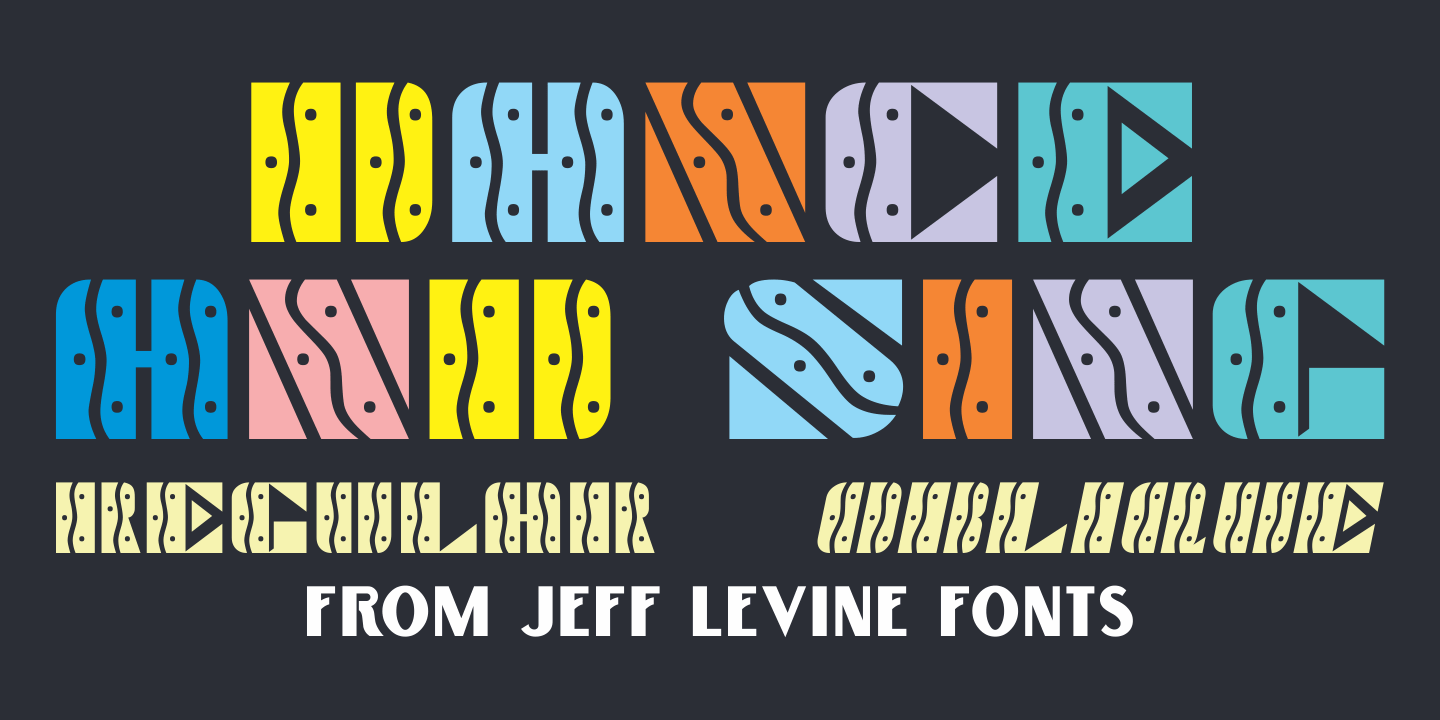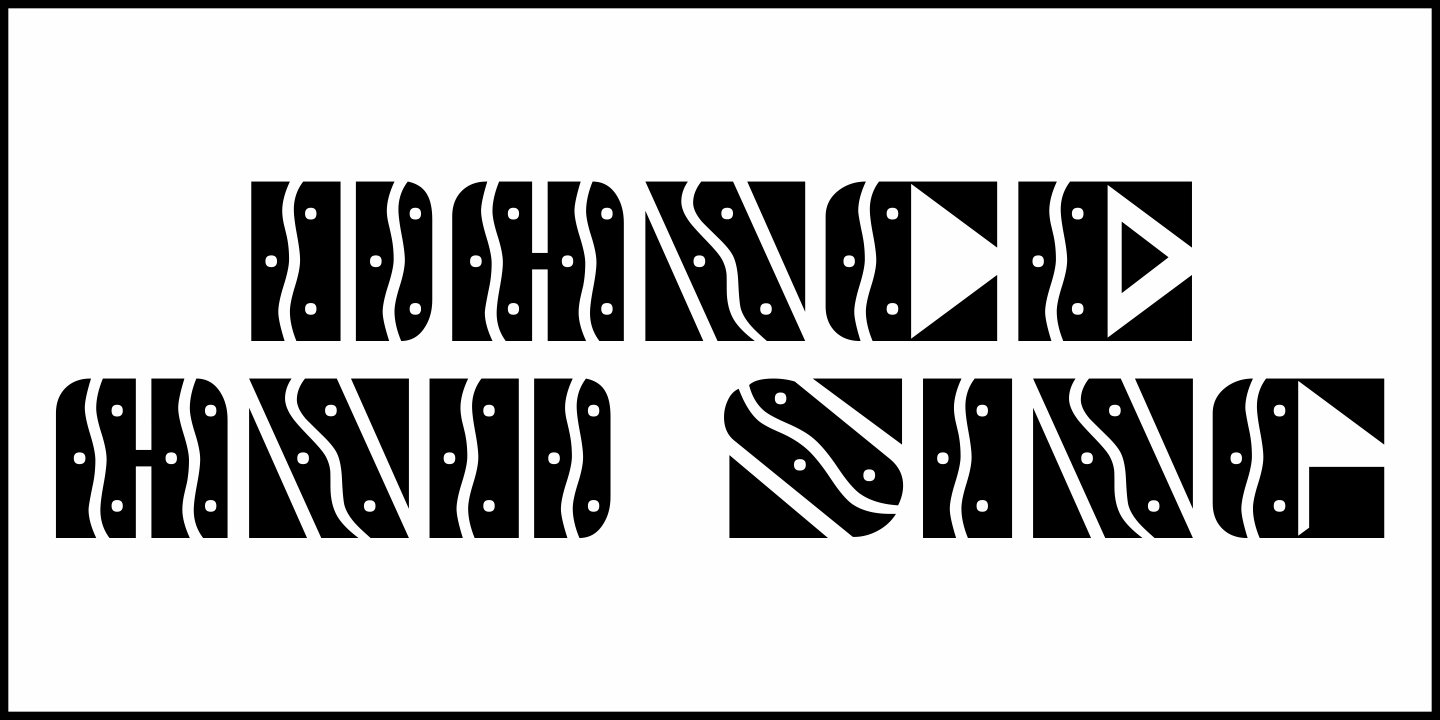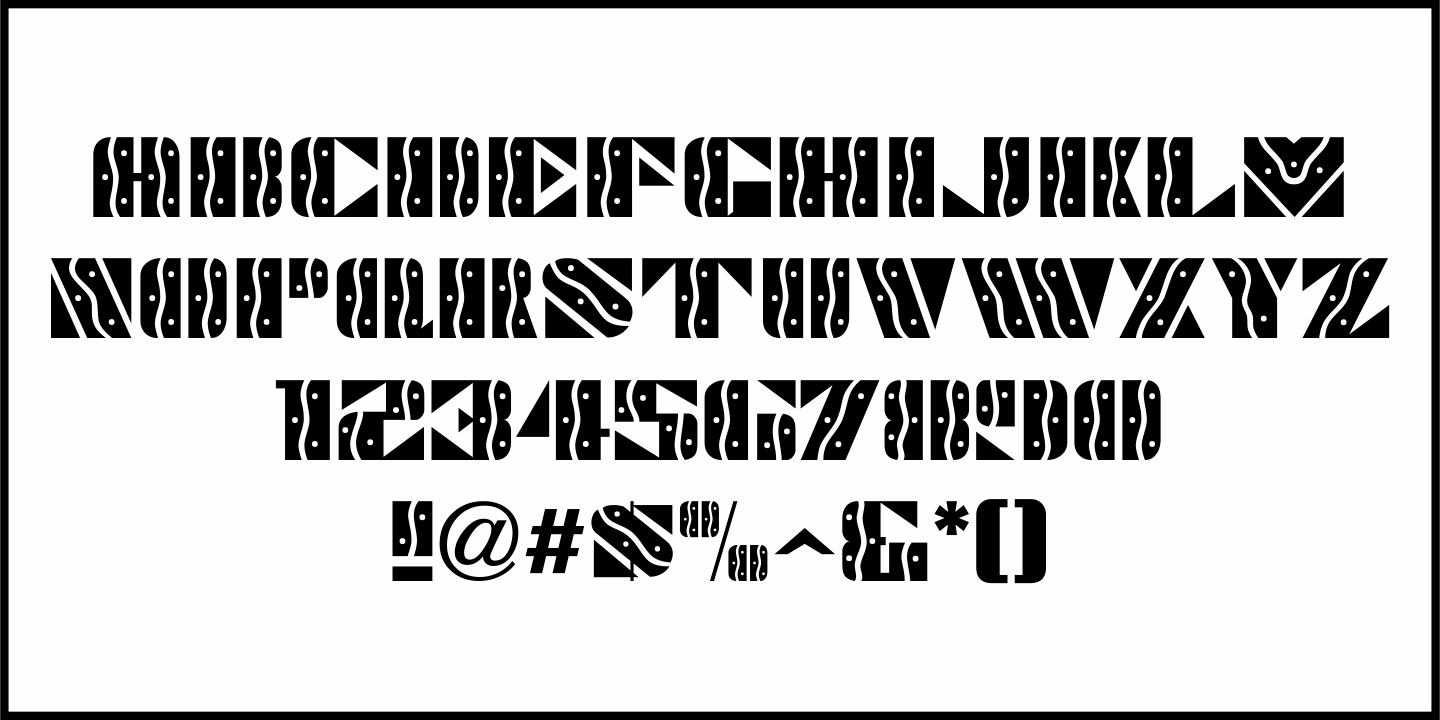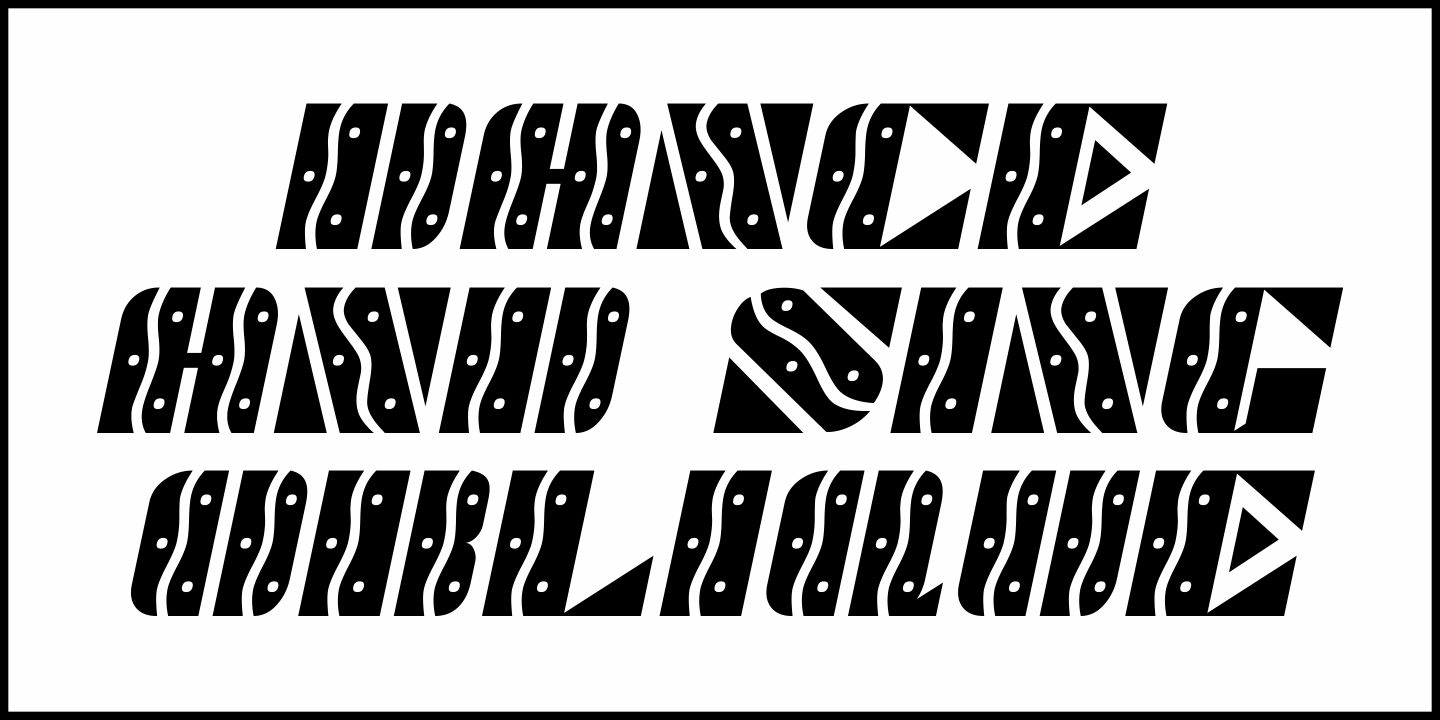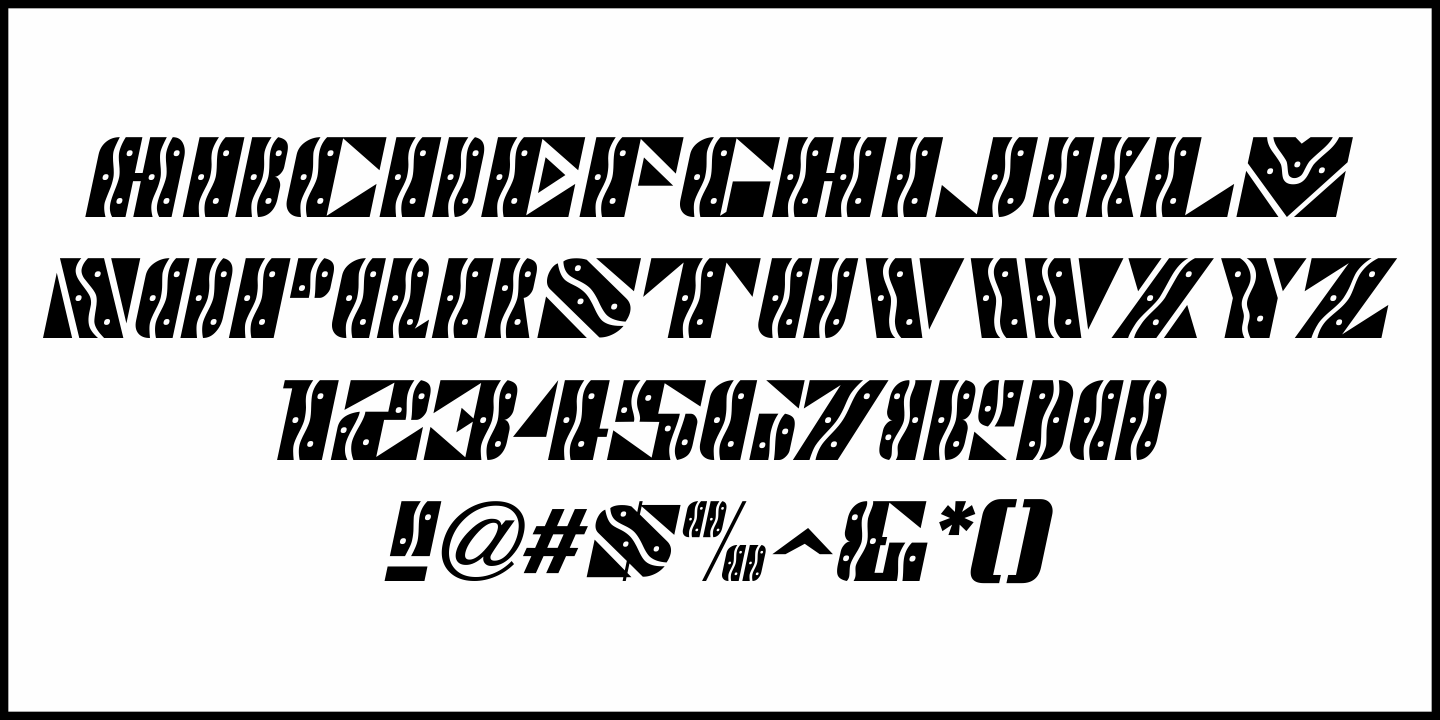
Dance and Sing
A 1932 fan magazine from Spain entitled “Films Selectos” (“Select Films”) had those words hand lettered in a decorative Art Deco type style that was a cross between the “Futura Black” style of stencil influenced display lettering and “Fiesta” lettering.
This hybrid design is now available digitally as Dance and Sing JNL in both regular and oblique versions.
Dance and Sing JNL Regular by Jeff Levine Fonts